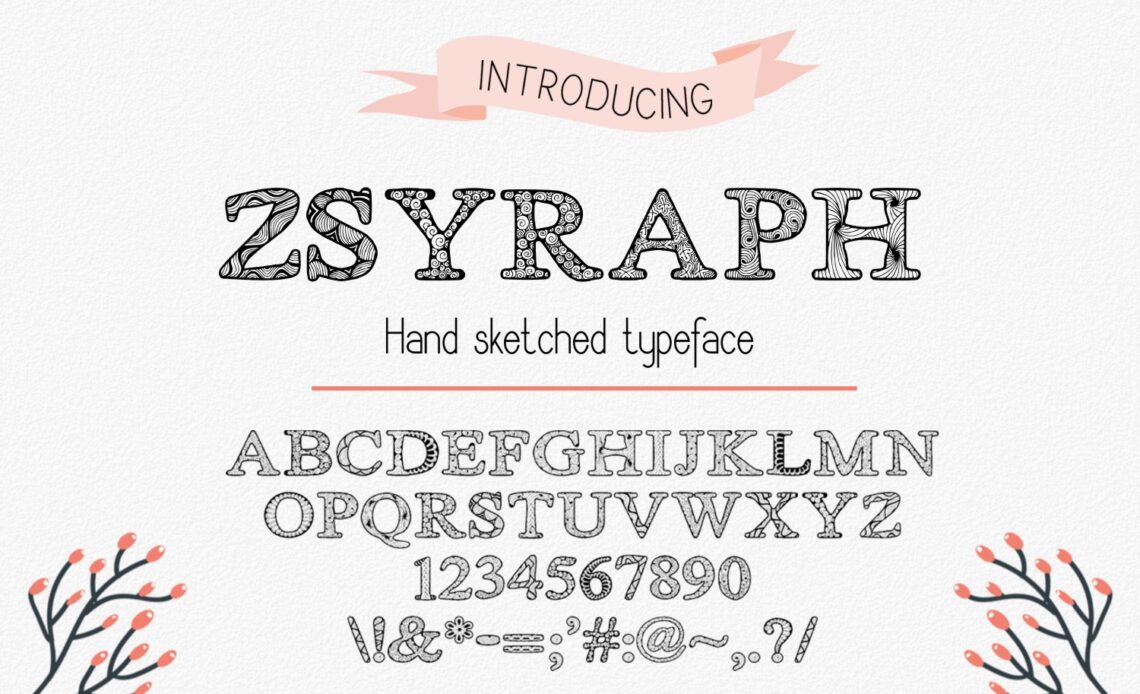
Zsyraph Font
Font Name : Zsyraph Font
Author : Digital Typeface Studio
Prepare yourself to be entranced by the Zsyraph Font, a stunning hand-drawn decorative masterpiece created by the Digital Typeface Studio. This font is not just a collection of letters; it's an explosion of artistic expression, ready to transform your creative visions into tangible realities.
Immerse yourself in the intricate details of Zsyraph. Every stroke, every curve, every twist is meticulously crafted to convey a sense of elegance and charm. It's a font that dances across the page, capturing attention and igniting imaginations.
With Zsyraph, unleash your creativity and watch your projects come to life. It's the perfect font for branding projects that demand a touch of sophistication, homeware designs that exude warmth and personality, product packaging that screams exclusivity, stationeries that elevate the ordinary to the extraordinary. The possibilities are endless.
But Zsyraph's magic doesn't end there. It's also the ideal choice for overlaying text onto background images. Imagine your words, infused with the Zsyraph's enchanting personality, seamlessly blending with captivating visuals. The results? Designs that resonate, that connect, that leave a lasting impression.
With Zsyraph, you're not just downloading a font; you're embarking on a creative journey. A journey where your ideas take center stage, where your designs shine brighter than ever before.
Don't settle for ordinary fonts. Choose Zsyraph and unlock the gateway to extraordinary design. Let your imagination run wild and create masterpieces that captivate and inspire. Step into the world of Zsyraph today and experience the transformative power of truly exceptional typography.